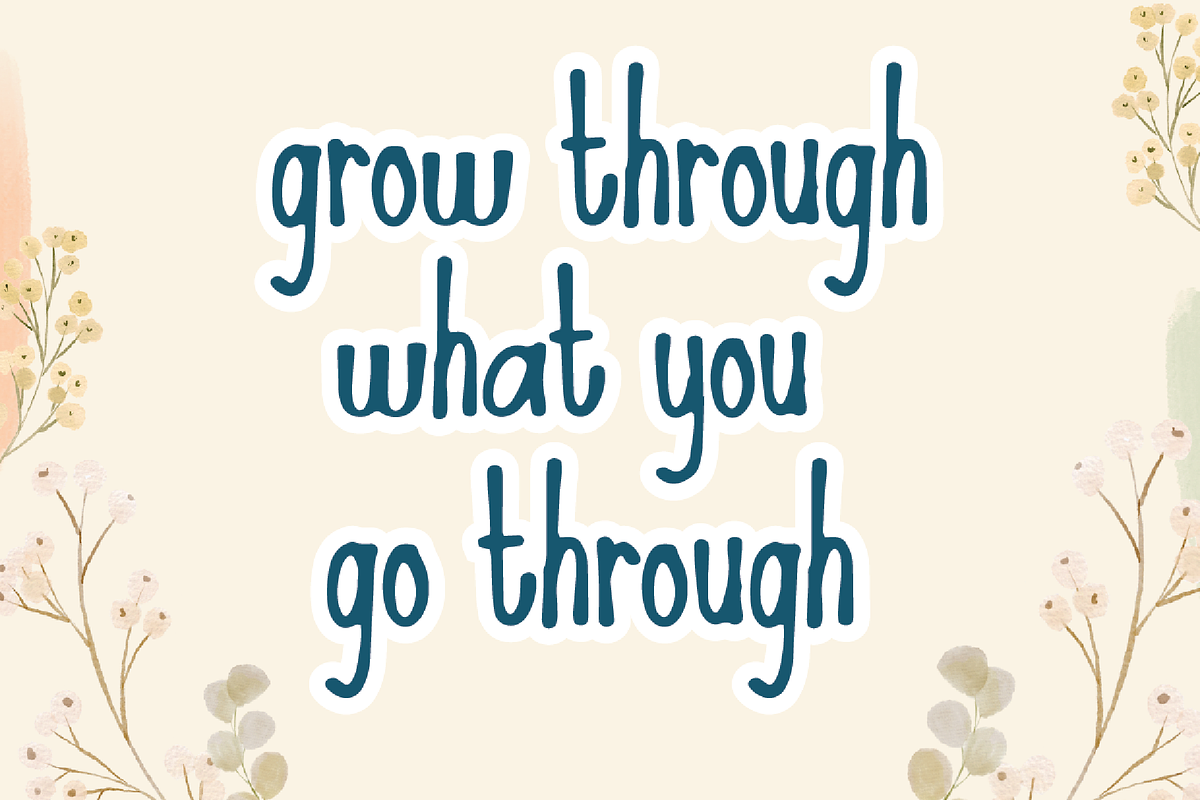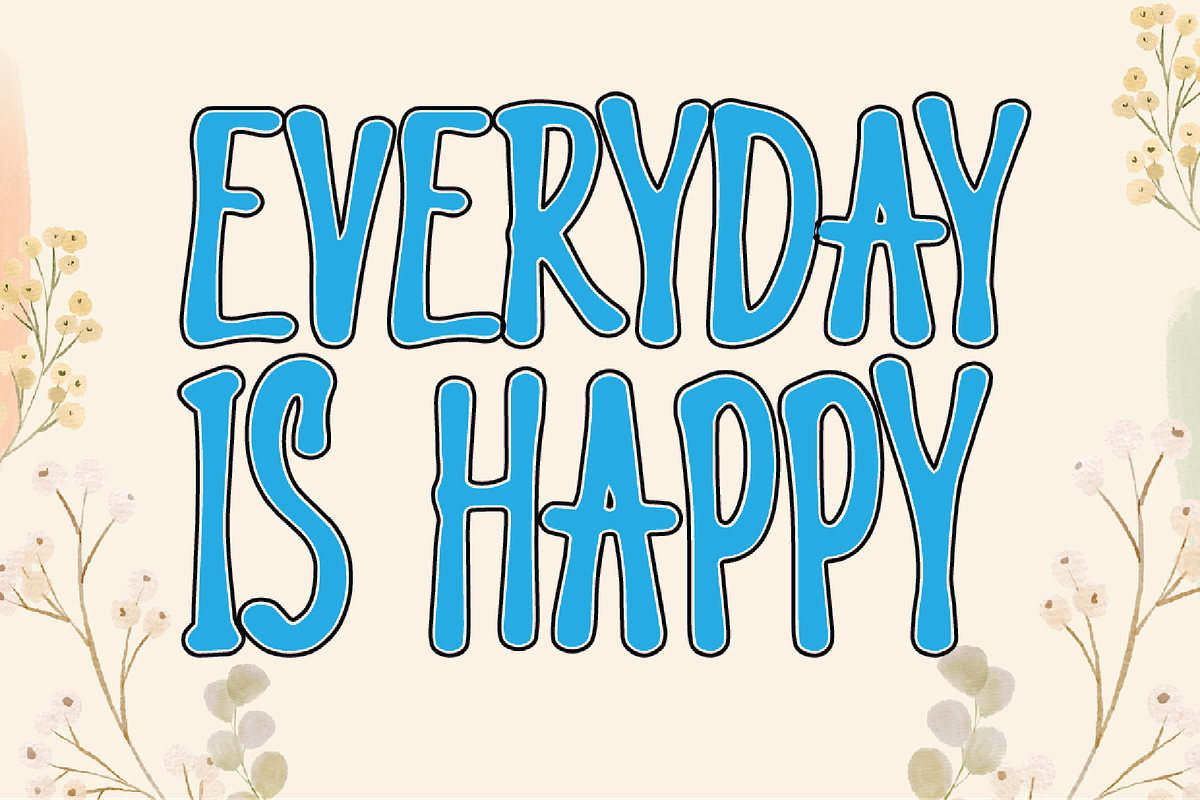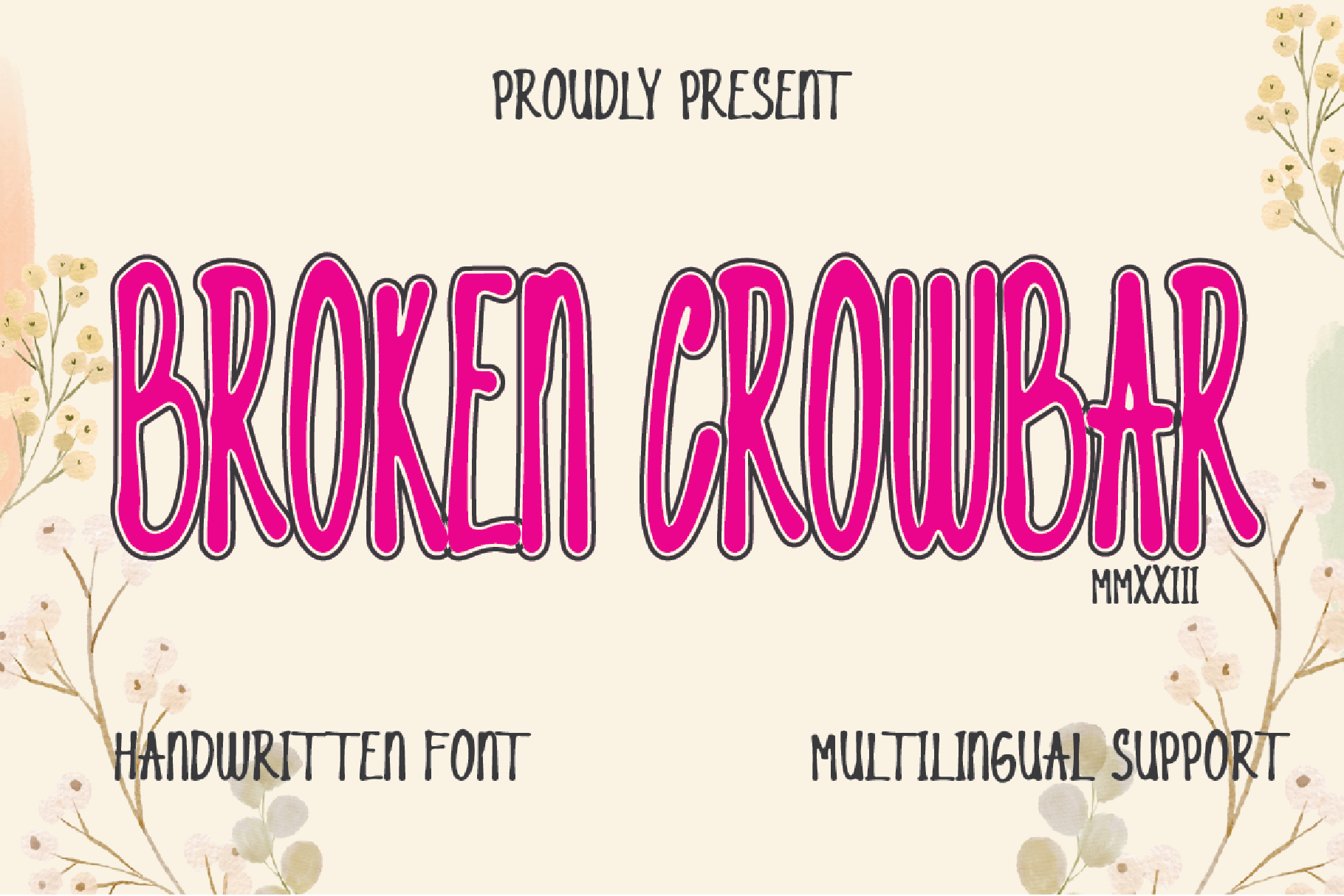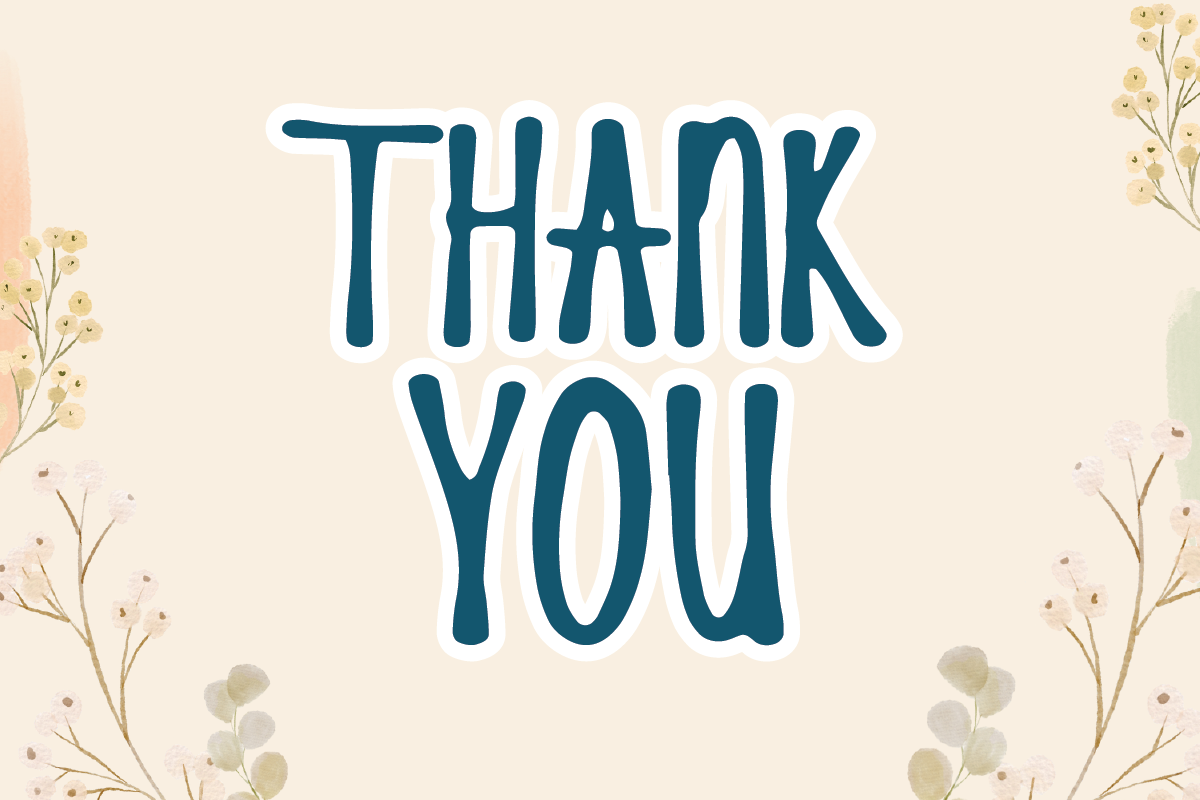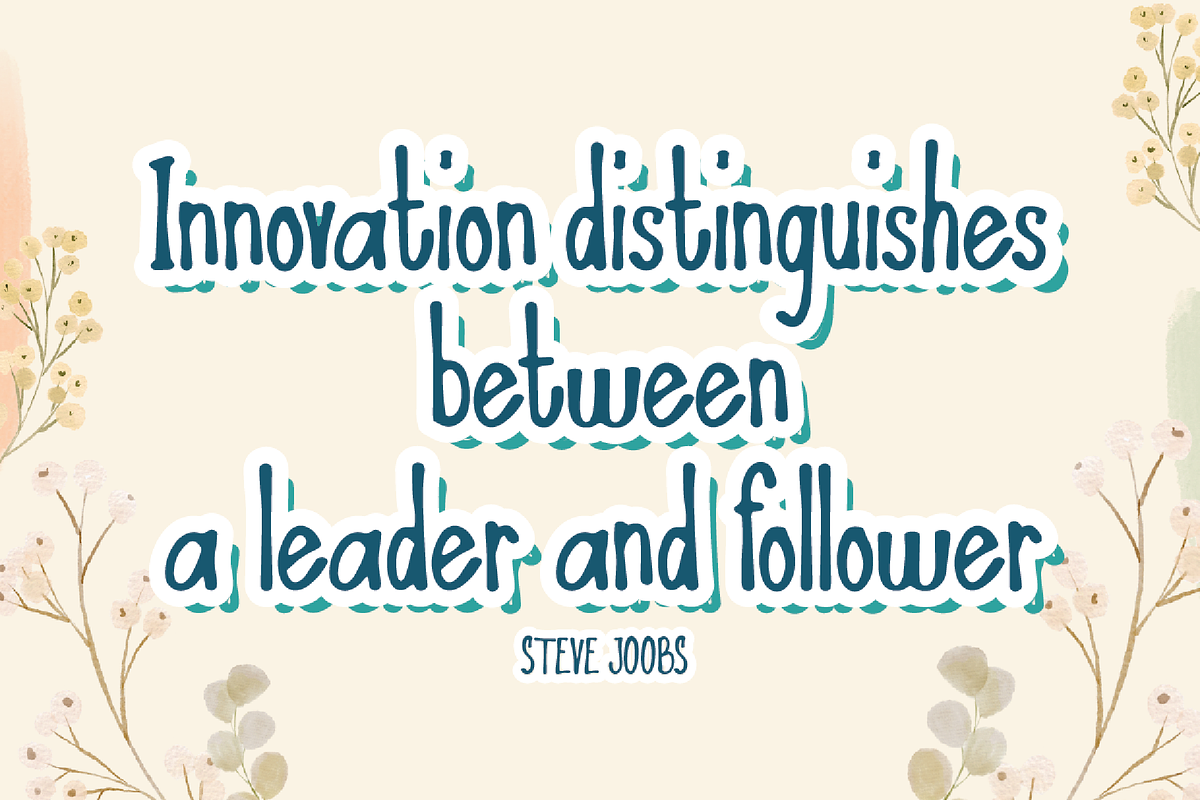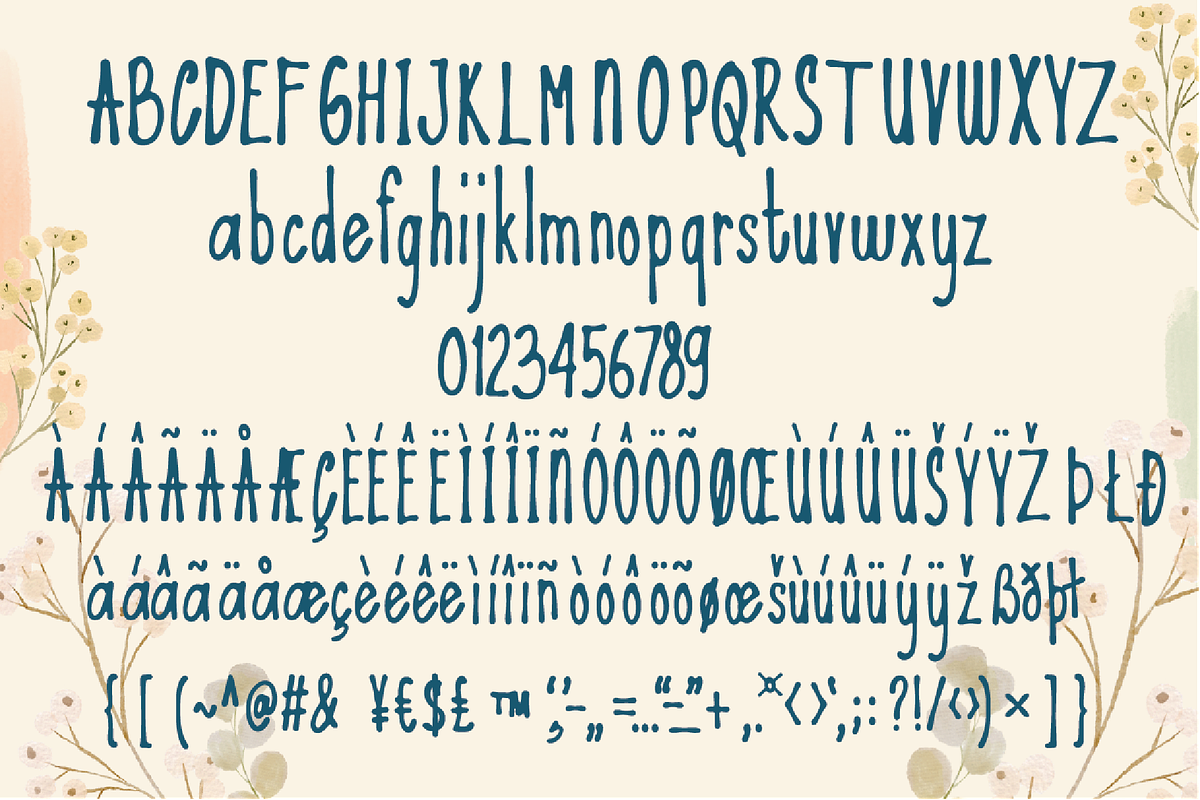
Broken Crowbar Handwritten Font
Broken crowbar is a hand-drawn font made to make handicrafts, clothing, and stickers work, and also your display more beautiful. This font is inspired by a natural hand touch, so it is perfect for any display. Make sure you also collect these fonts in your device and create a masterpiece.